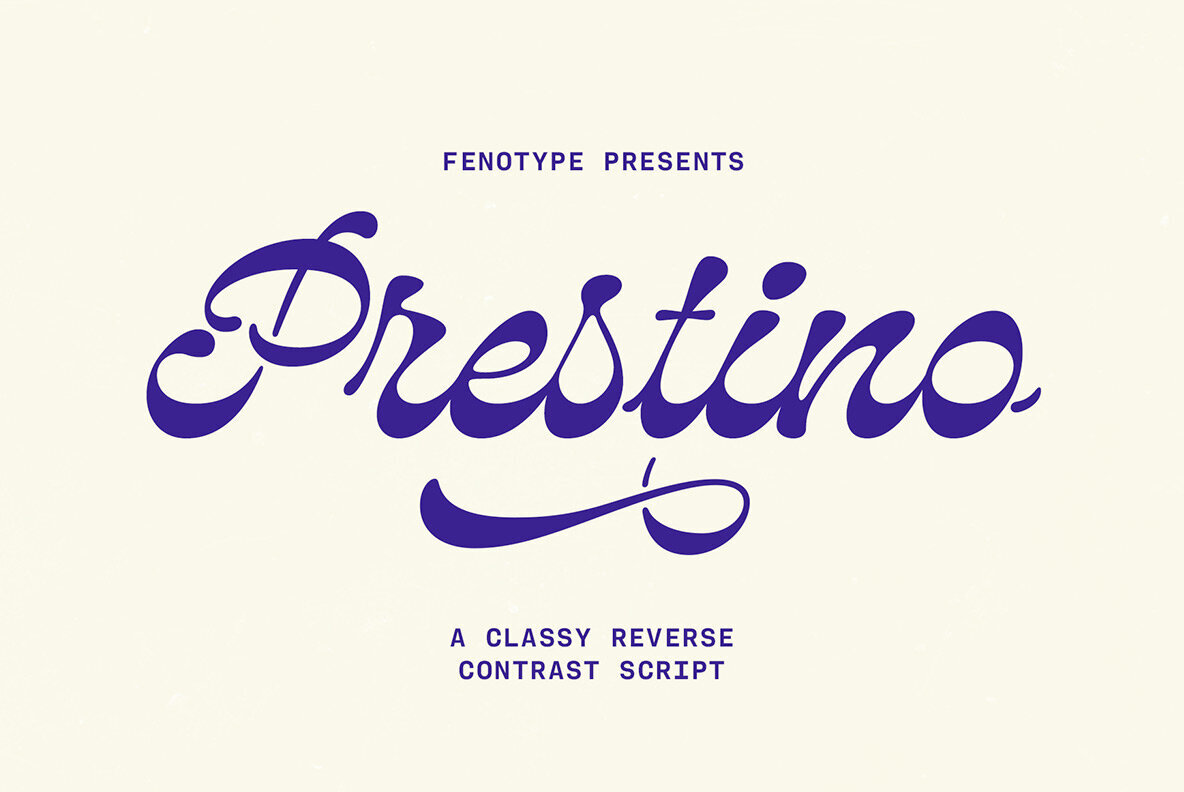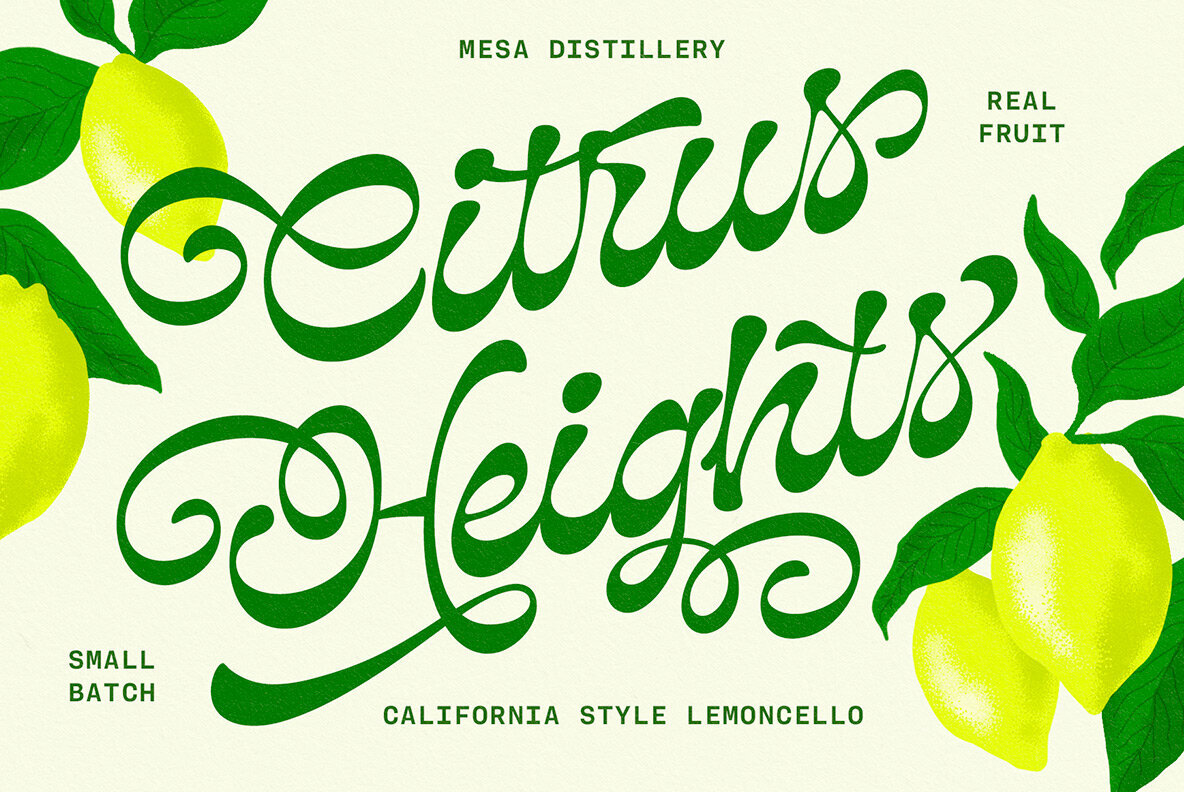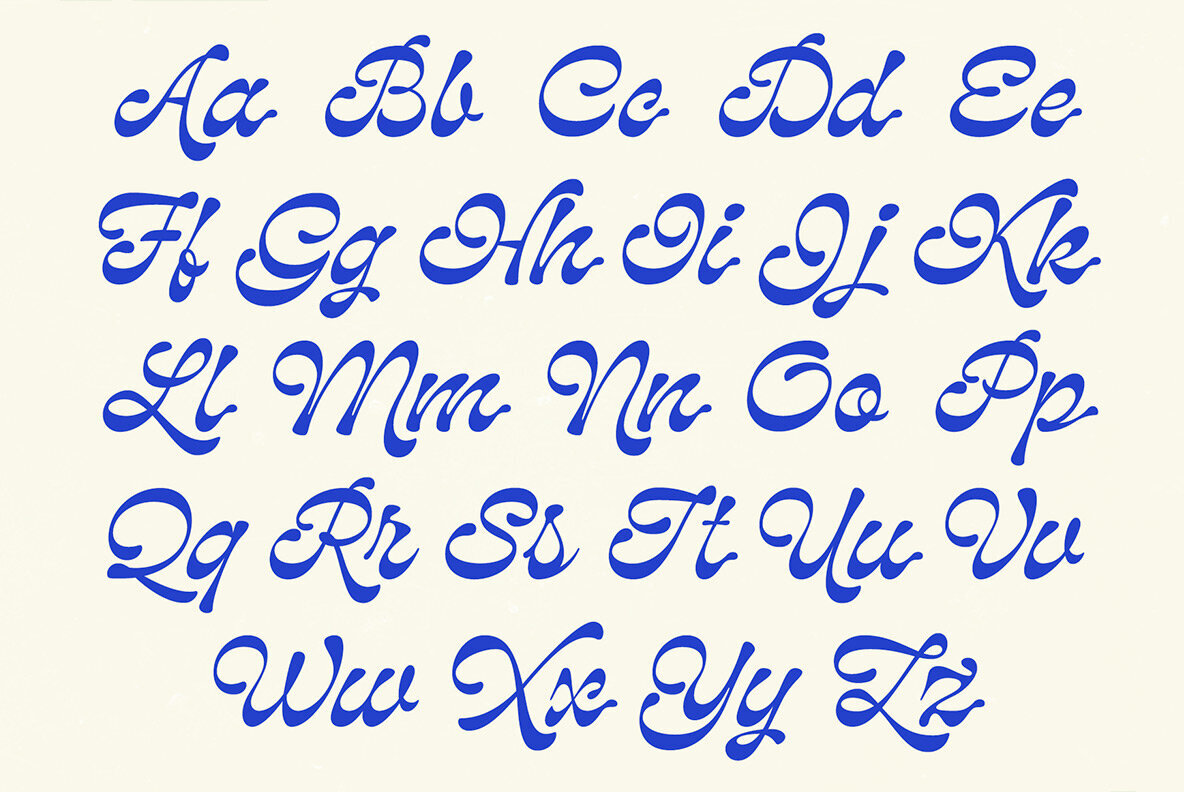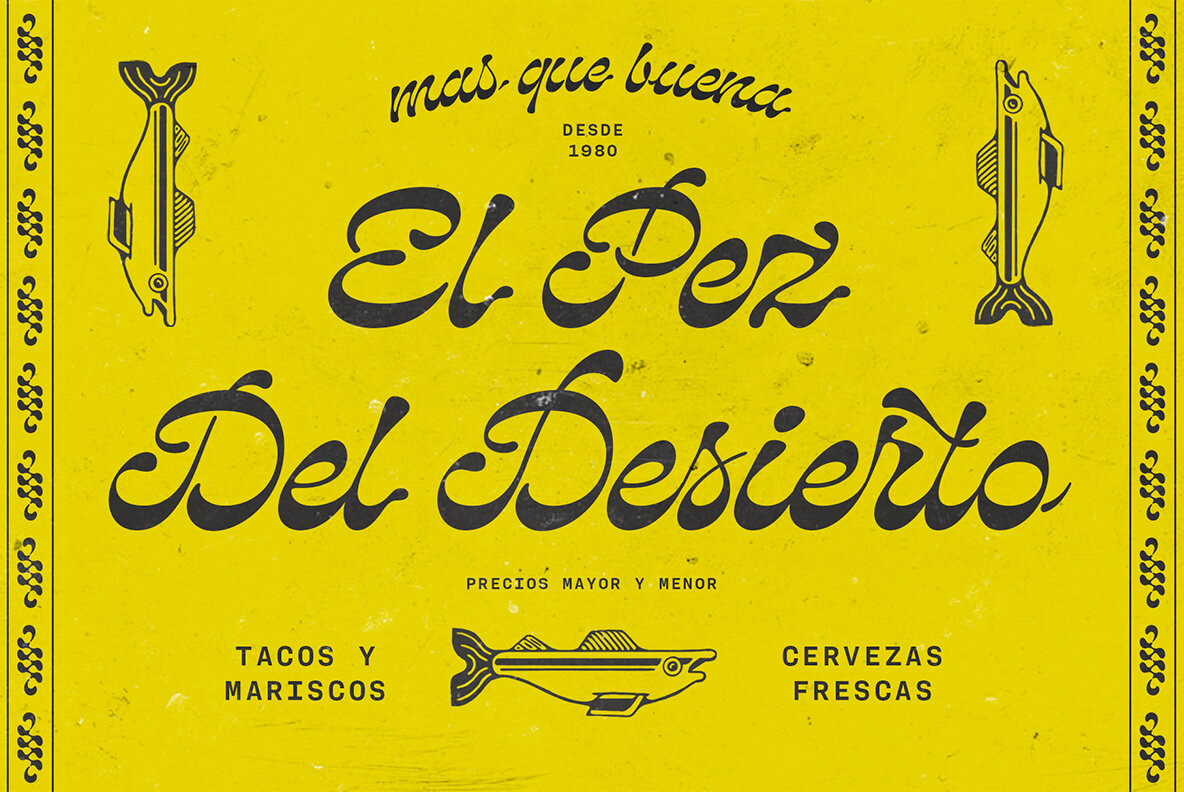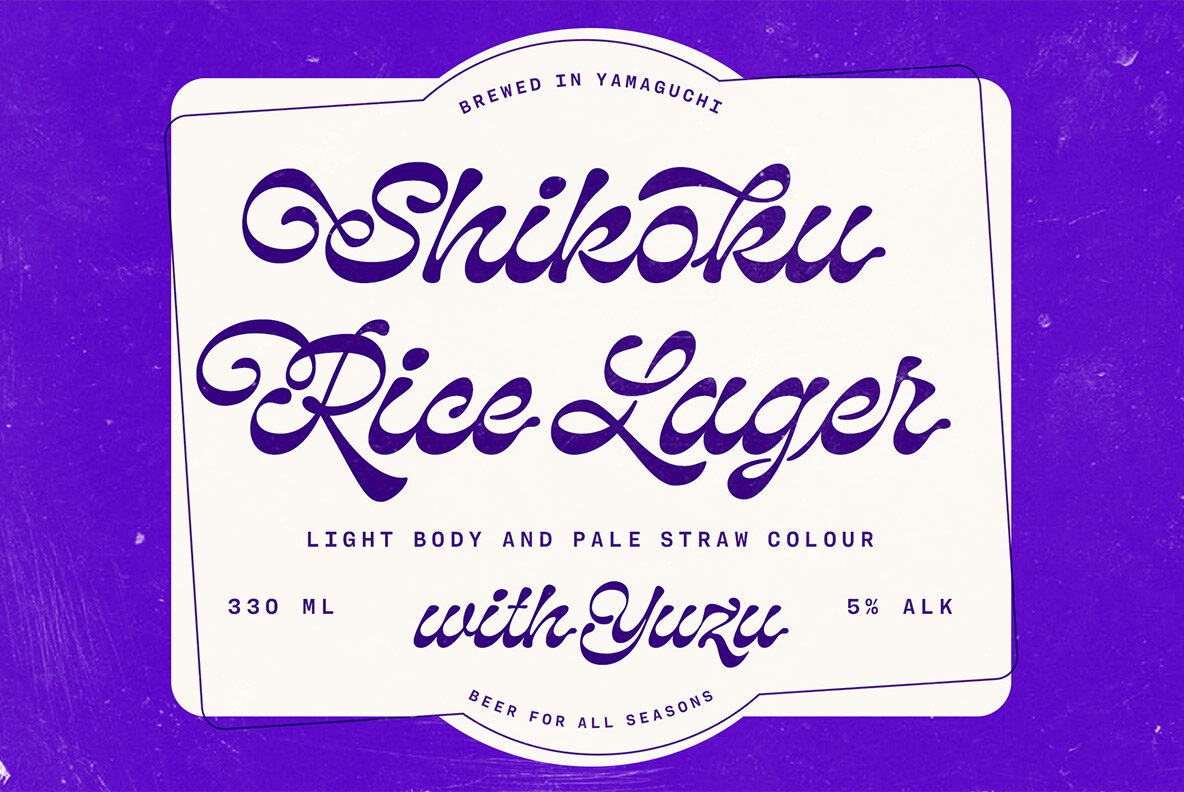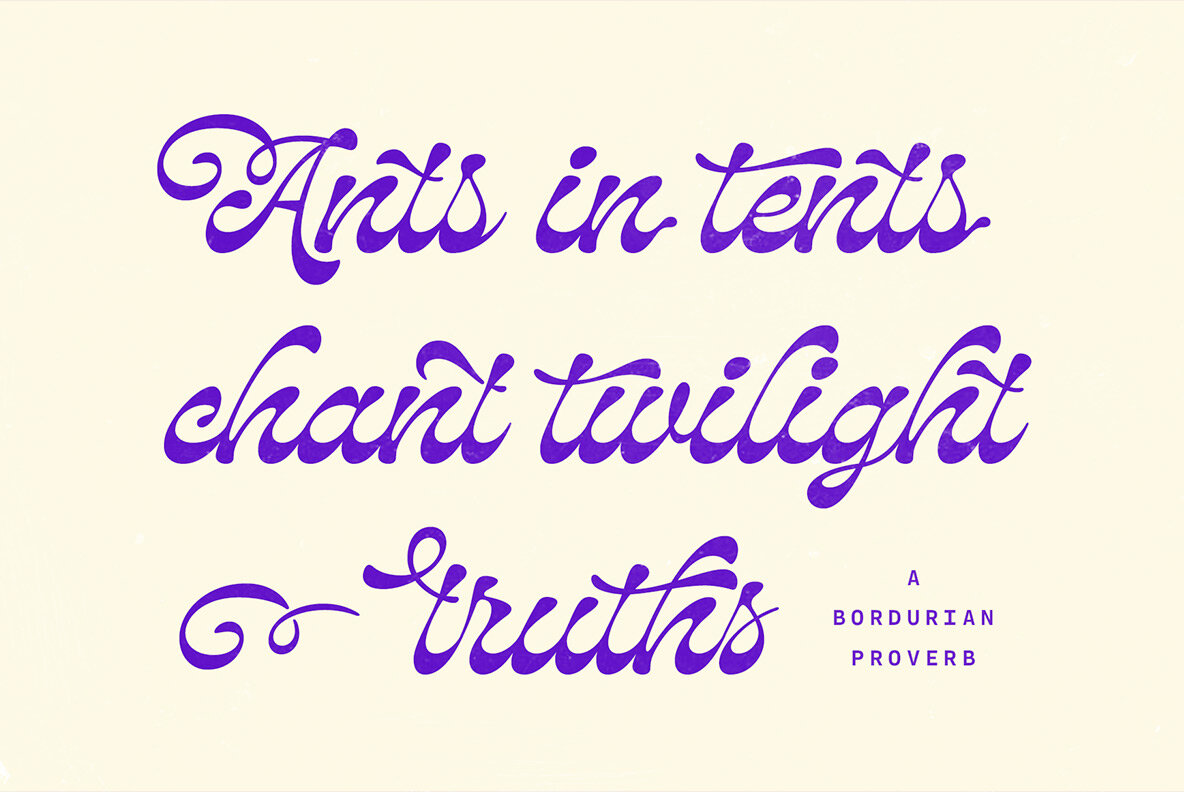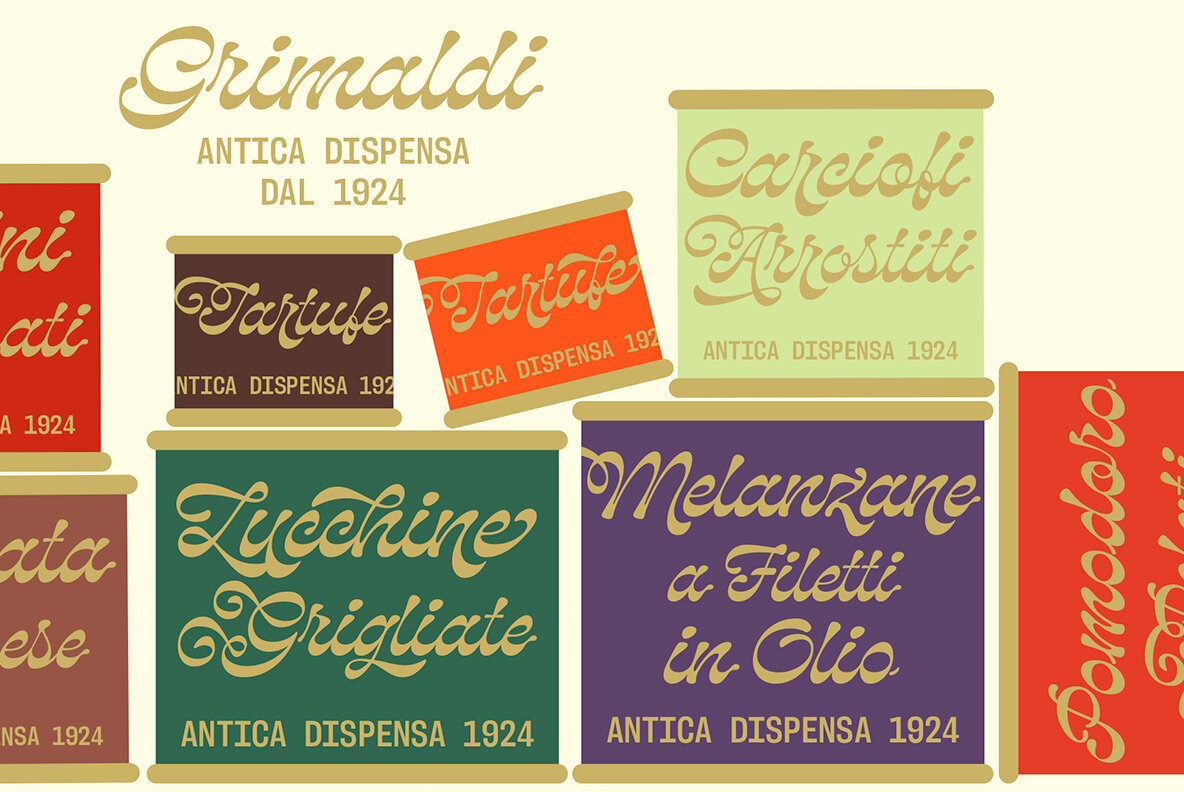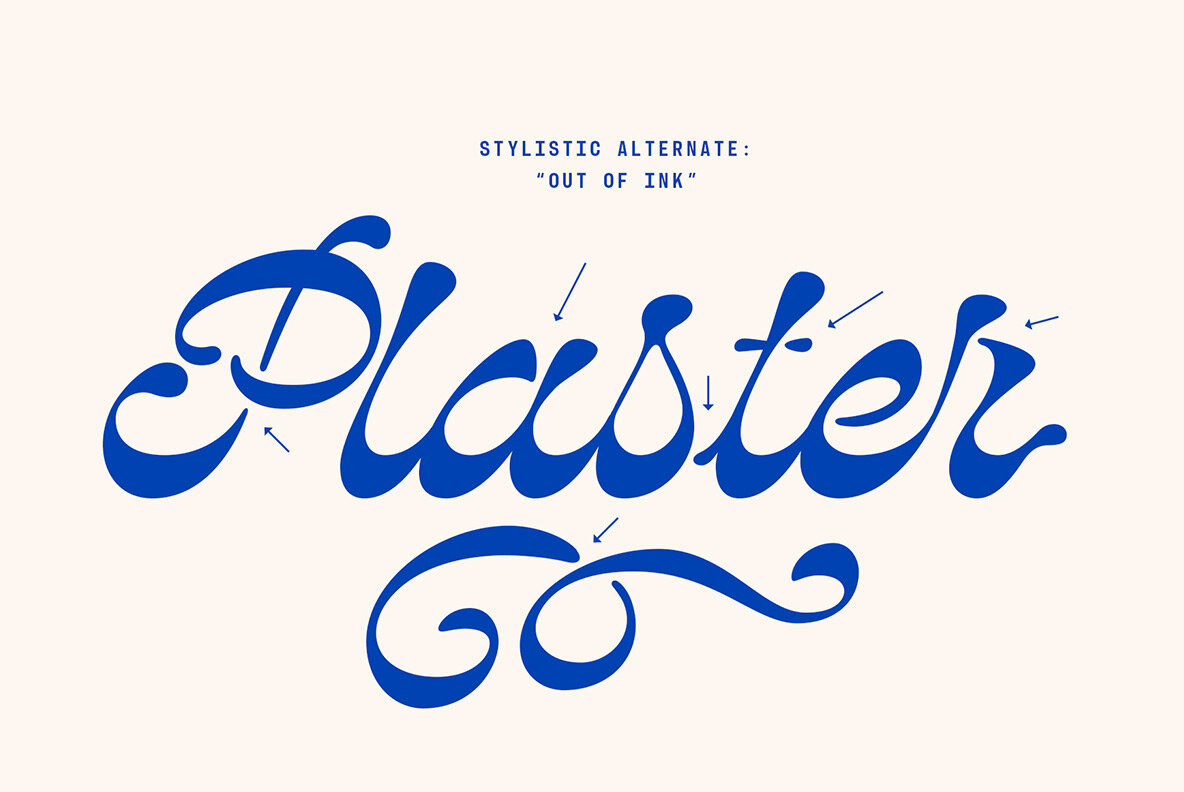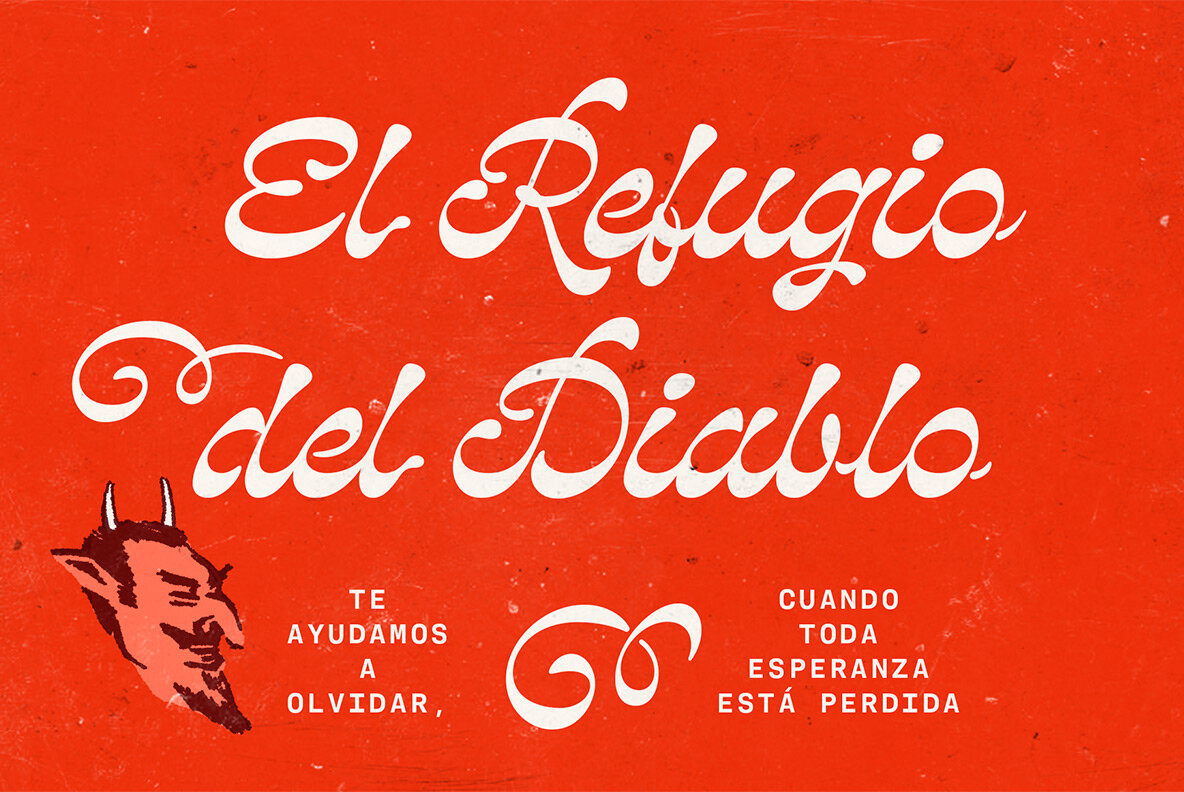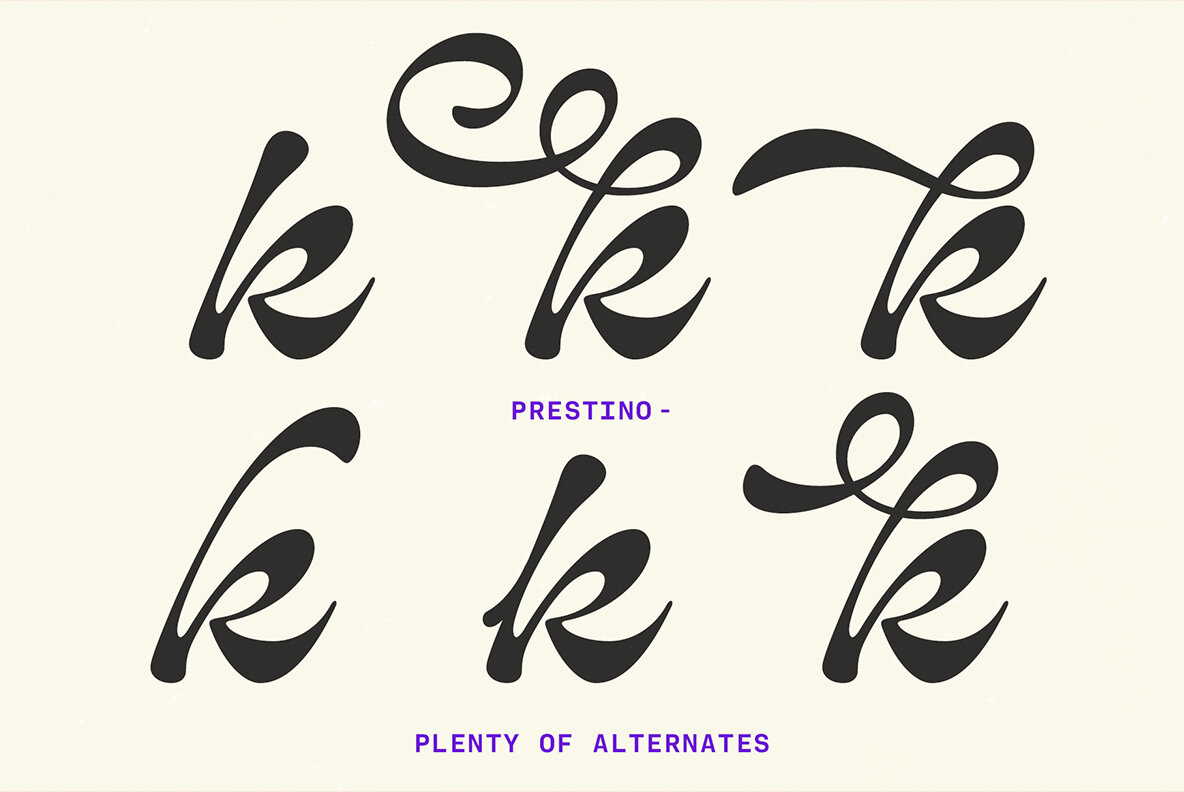
Prestino Font
Prestino Regular
Prestino embodies a harmonious blend of contemporary aesthetics and nostalgic undertones, making it a fitting choice for modern designs, product labels, and various display applications. Its unique style offers a versatile option for those seeking to infuse a touch of elegance into their projects.Prestino: An Elegant Reverse-Contrast Brush Script